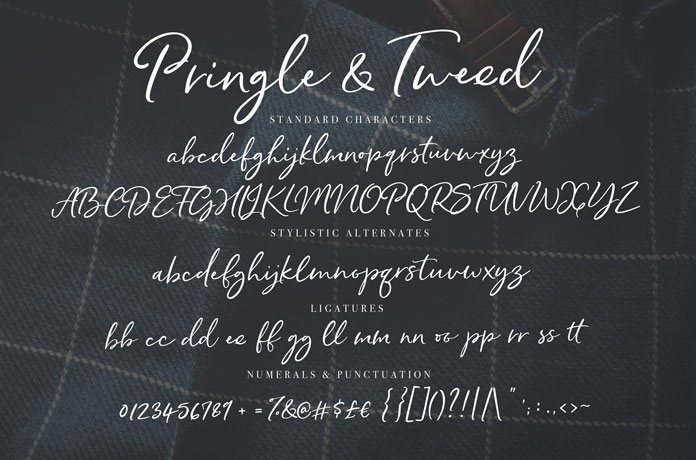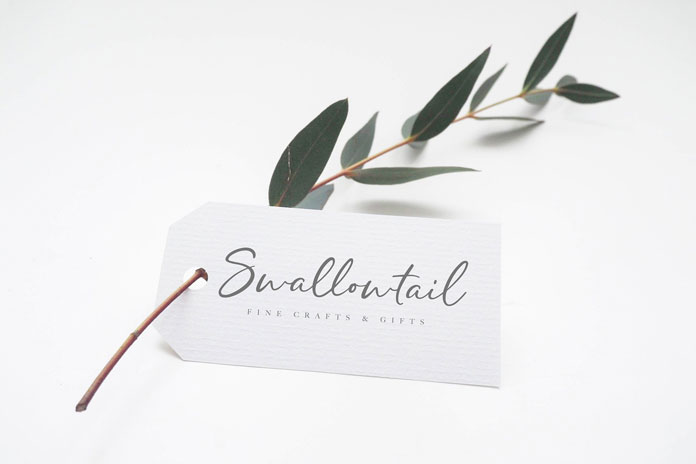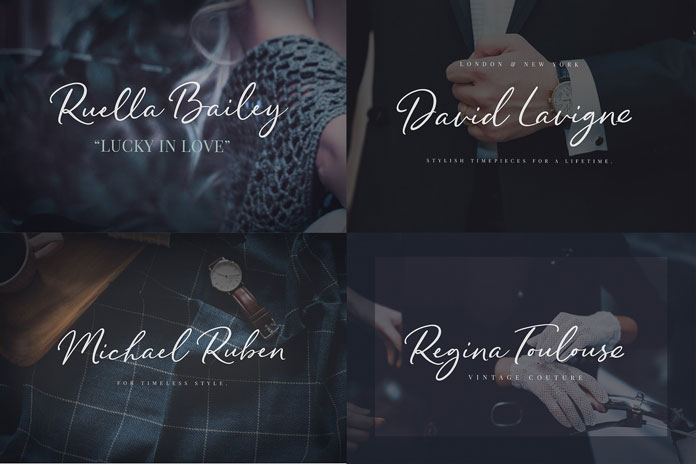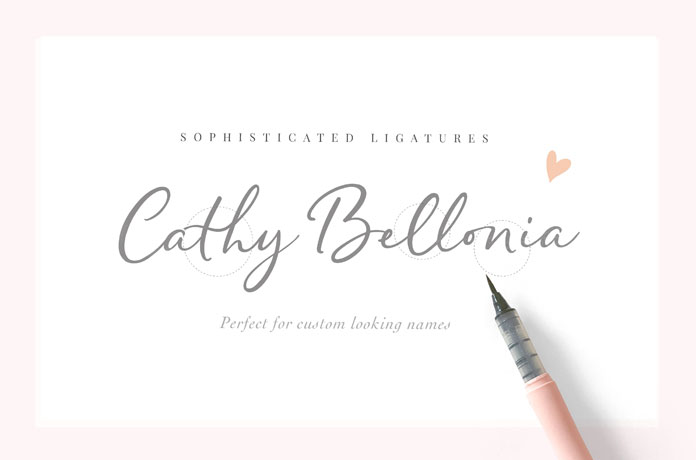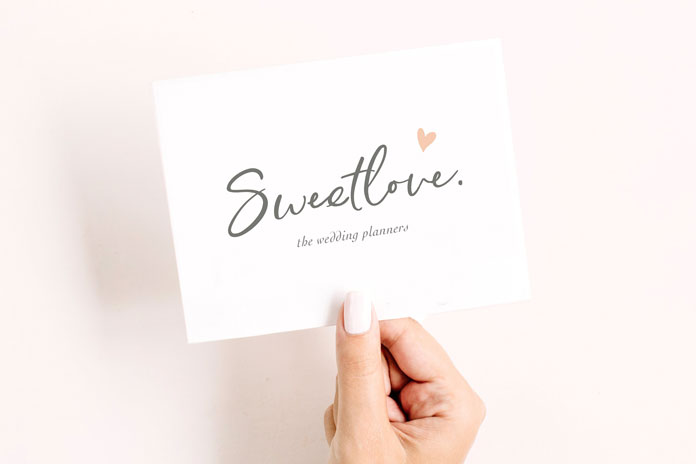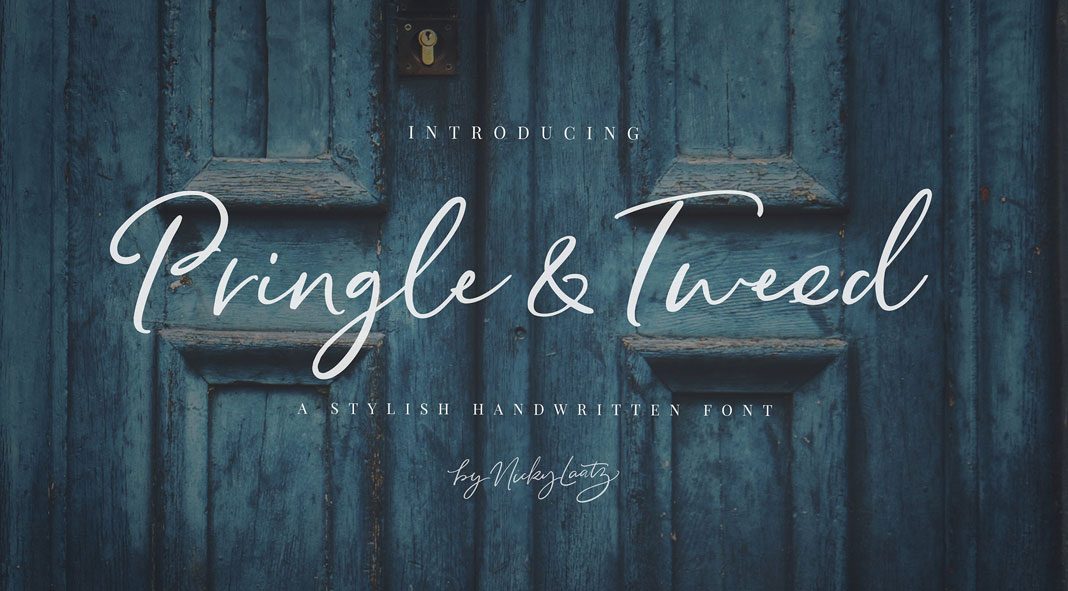
Pringle and Tweed, a handwritten script font with unique curves and an elegant flow.
Recently designed and published by Nicky Laatz, Pringle and Tweed gives your lettering a unique touch. Based on handwritten, gentle curves, this beautiful script is completely distinctive and original. It comes in 4 versions plus a set of double letter ligatures to give your typographic work a more natural look and feel. It is well suited for logotypes and diverse branding projects as well as custom looking names, invitations, fashion, and much more. For further information on all features, just follow the link below.